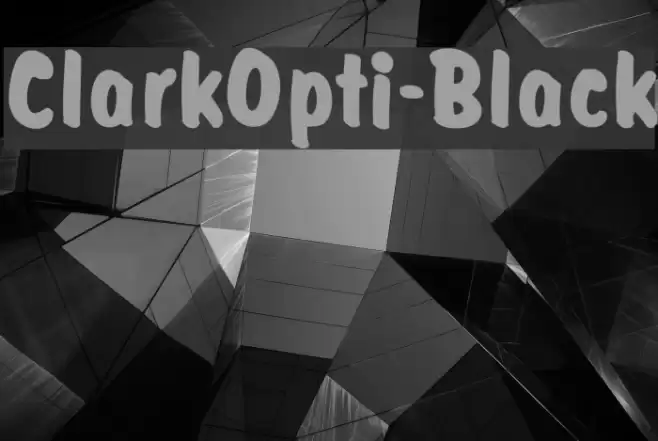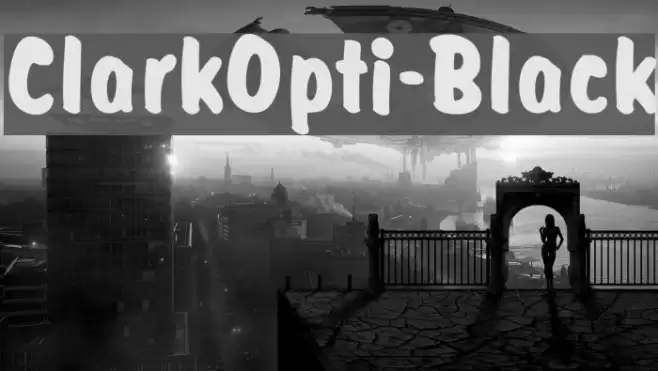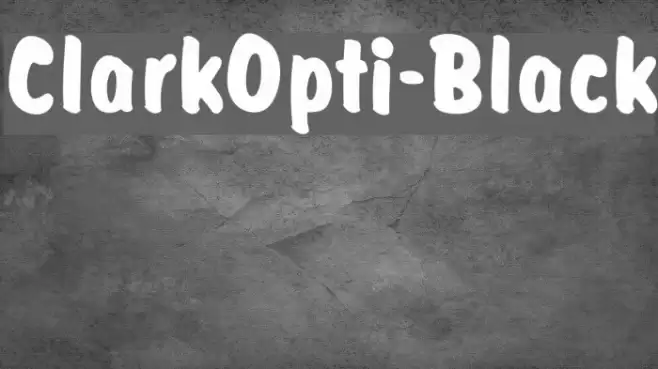
ClarkOpti-Black Font
ClarkOpti-Black Description
This font features a bold and playful style with rounded edges and a slightly irregular form, giving it a hand-drawn appearance. The characters are thick and substantial, providing a strong visual impact. The uppercase and lowercase letters maintain a consistent weight, enhancing readability while adding a touch of whimsy. The numerals and special characters follow the same design principles, ensuring uniformity across all glyphs. This font's boldness makes it ideal for grabbing attention and conveying a sense of fun and creativity.
A bold, playful font with rounded edges and a hand-drawn feel from Uncategorized fonts.
- Proposed Projects: Ideal for children's books, playful branding, posters, and creative projects that require a bold and friendly typeface.
- Overall Style: Playful, Creative